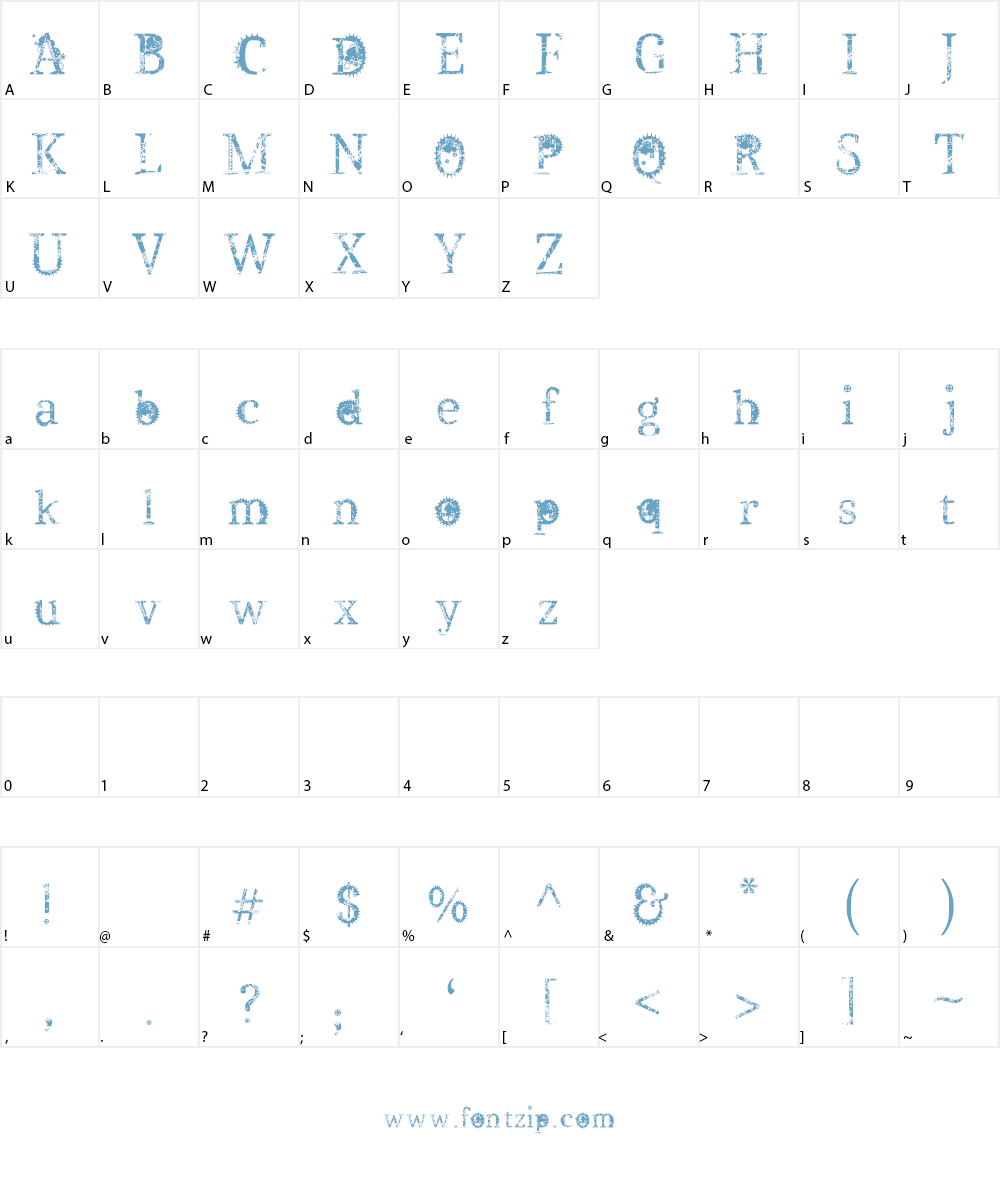
This steampunk and geared font was made by me for my series of Wild Wild West scrapbooking products. Personal use ok. For commercial use please donate 6 dollars for one person CU license at